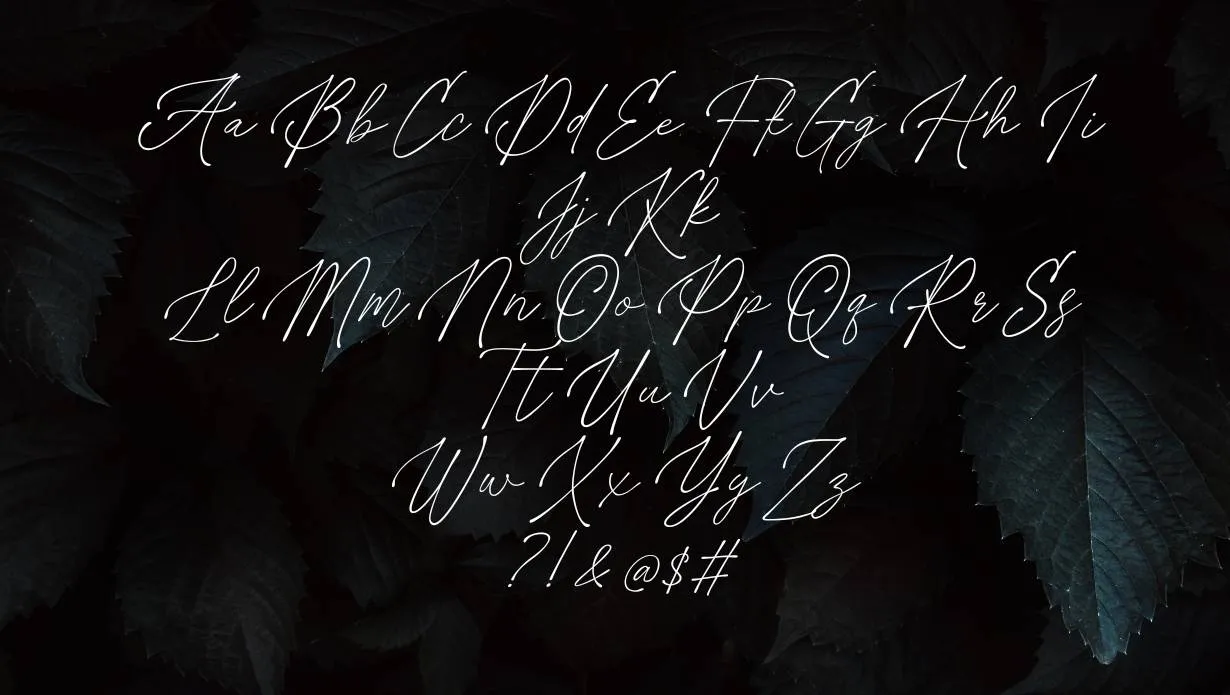
Introducing Adeptly Font, a script typeface created by Niskala Huruf. It features a contemporary and fashionable look that is ideal for artistic endeavors.
This font originates with 221 unique glyphs and 235 stylish characters in large and small letters, numbers, etc.
To make a more gorgeous and attractive design, utilize this font with shiny flakes font; the result will be stunning.